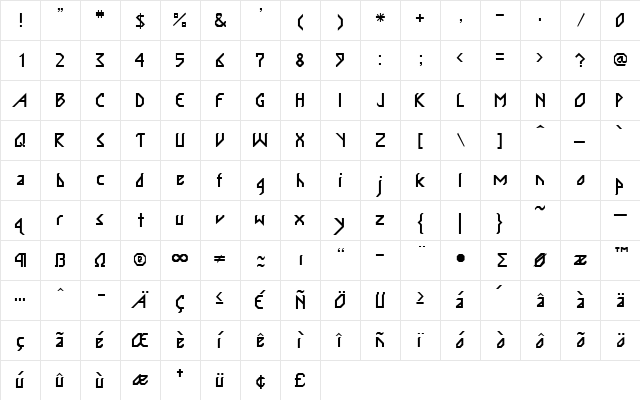
InkaBod.fog fog
Design Context for InkaBod.fog Typeface
InkaBod.fog is a composed and adaptable typeface that performs quietly and consistently across a wide range of design contexts.